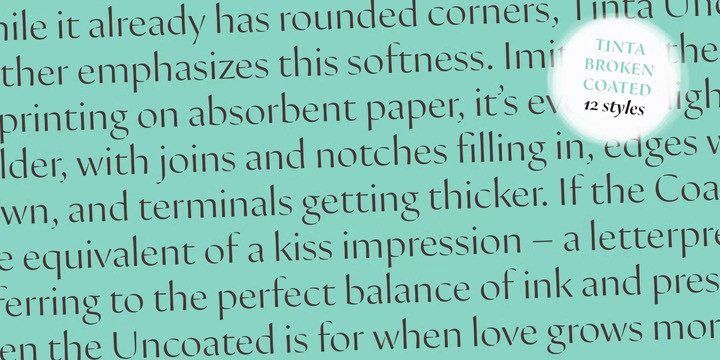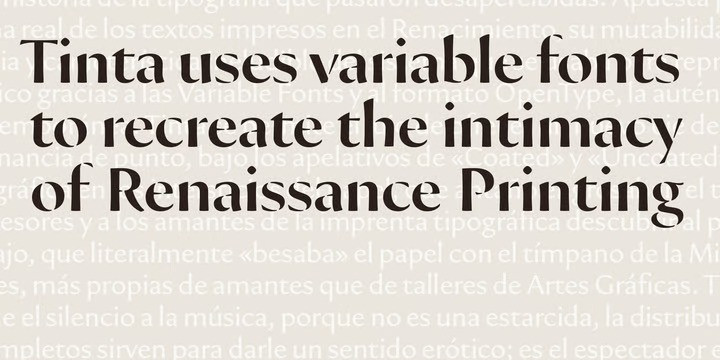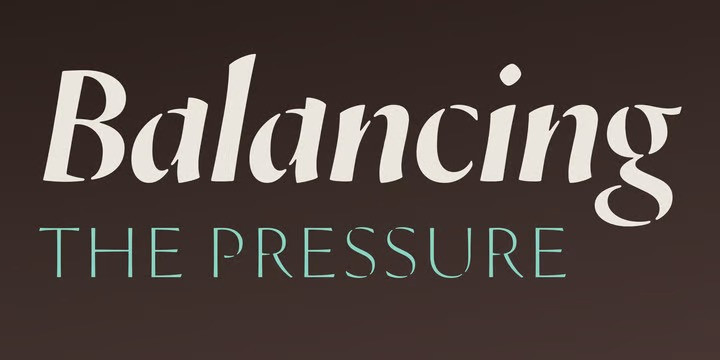
Tinta Broken Coated Font
It’s time to see our impressive font, Tinta Broken Coated Font Family, The Tinta typeface is a rebellion against sterility and cold perfection. In a time dominated by supersharp offset printing and screen typography, Tipografies embarks on a search of lost warmth. The goal is to recreate the mood of Renaissance printmaking. Tinta utilizes variable font technology to bring back the vulnerable quality of letterforms.
Tinta Broken, on the other hand, shows what happens when too little force is applied, or letters are underinked. Its glyphs are fragmentary – the marks of a cursory, unfinished liaison. Thin strokes get thinner, exposing the diagonal contrast axis deduced from the broad-nib pen. Some parts even break. Despite these gaps, Tinta Broken is not a stencil design. It’s the lovesick type, craving for closer contact.